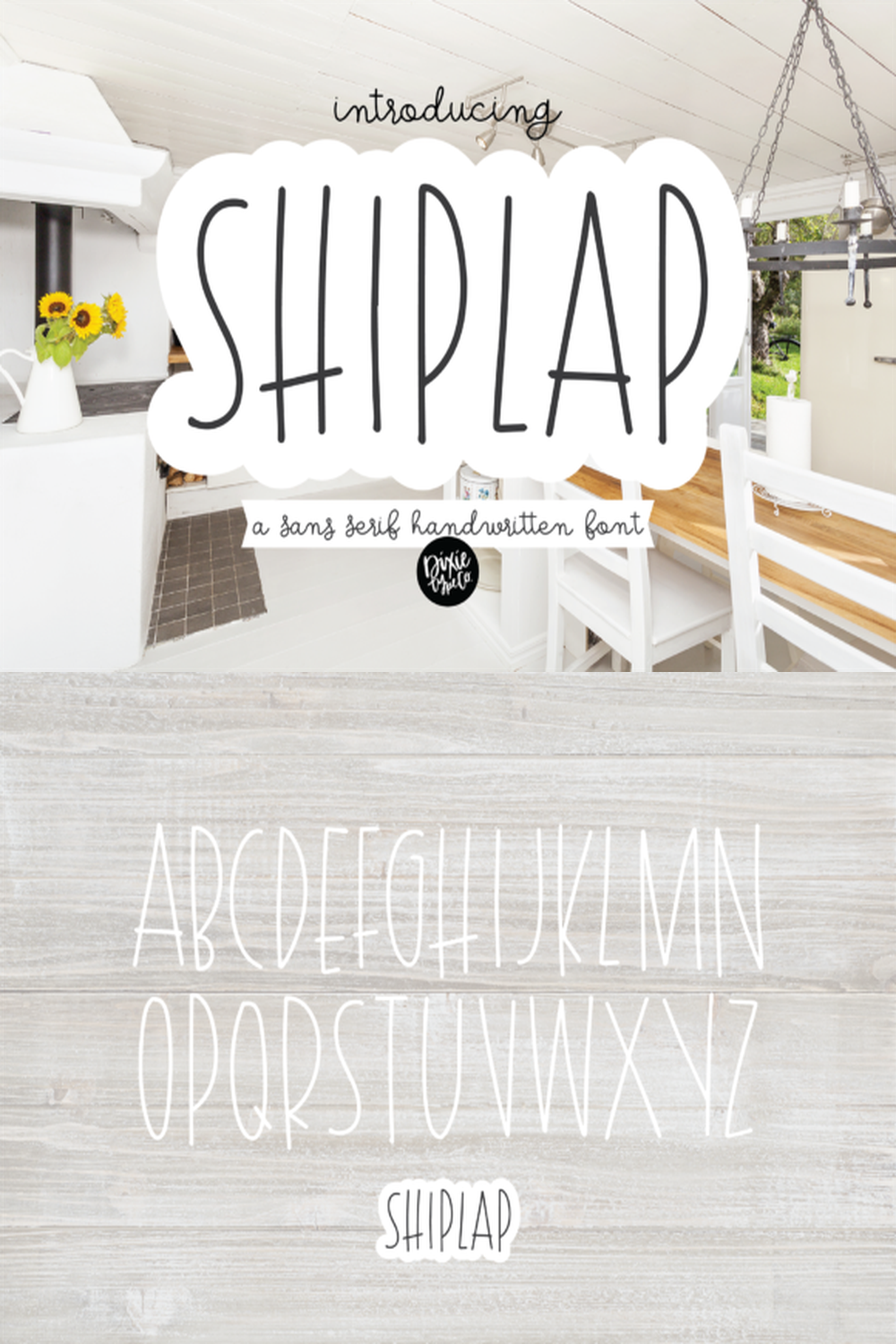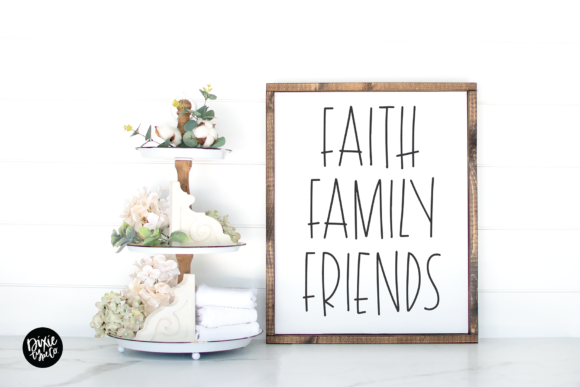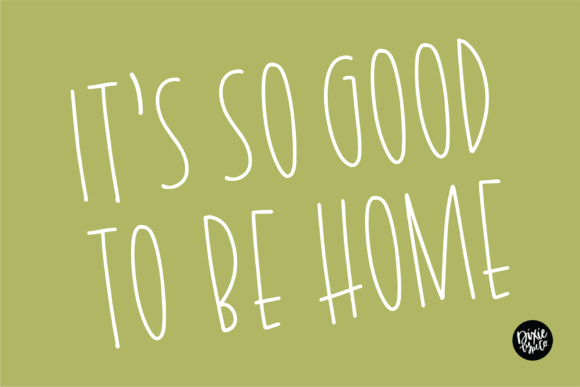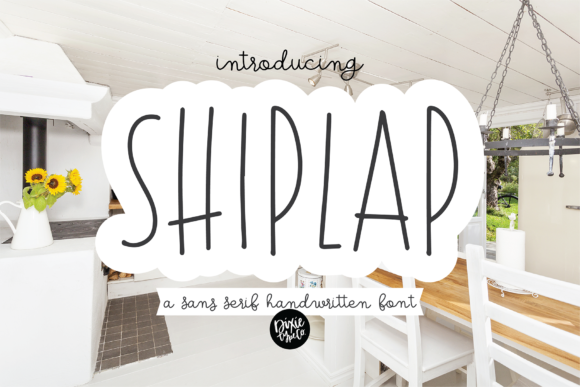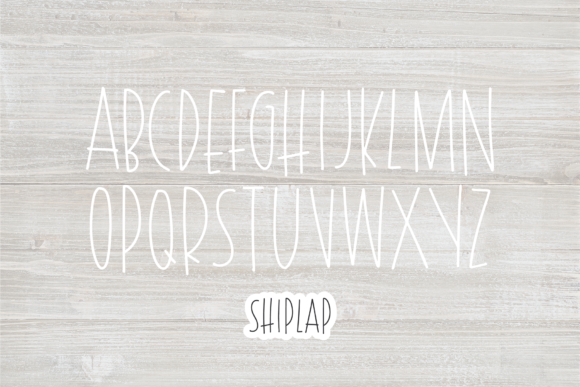
Shiplap Font: A Cute & Casual Sans Serif for Cricut & DIY Projects
About the Shiplap Font
The Shiplap Font is here to transform your projects with its distinctive character and style. Shiplap is a cute and casual sans serif font with an undeniably clean feel. With its neat and beautiful arrangement of letters, this typeface will look outstanding in both formal and non-formal designs.